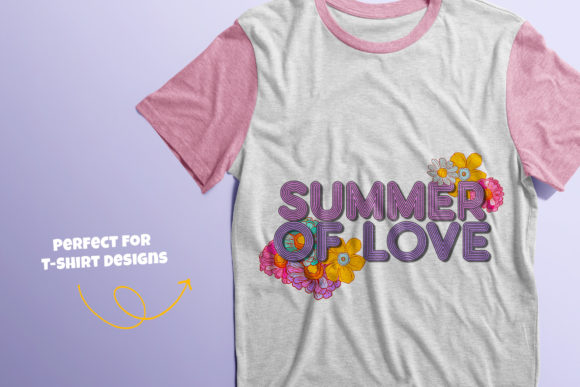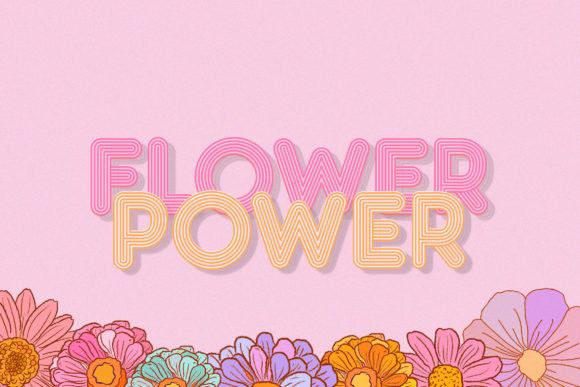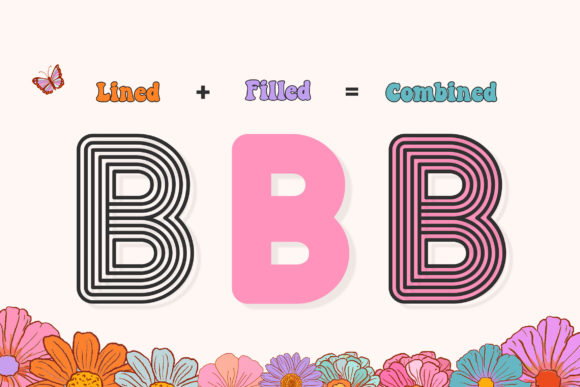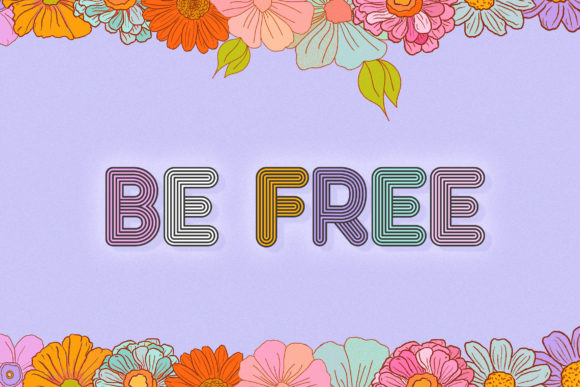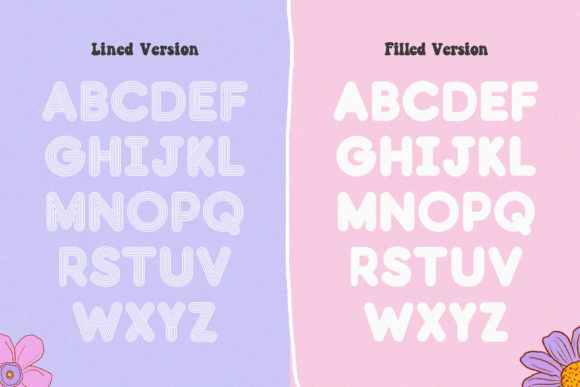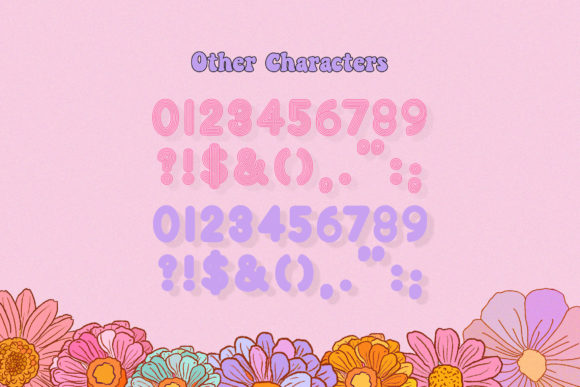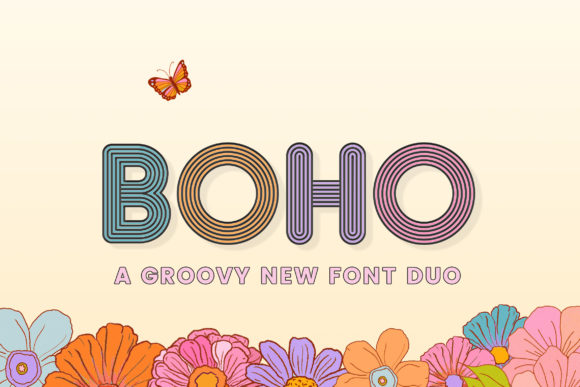
The Boho Font: A Retro Revival for Your Creative Projects
I’ll never forget the design struggle I faced while working on a vintage-inspired branding project for a boutique client. I was on the hunt for the perfect font that could capture the essence of a bygone era, but everything I found seemed either too generic or too over-the-top. That’s when I stumbled upon the Boho font, and it was love at first sight! 😍 In this article, I’ll share my experience with this amazing display font, its features, and how you can make the most of it in your designs.
An Honest Review of Boho Font
What I Love About Boho Font
- ✨ Unique retro vibe that’s perfect for creative projects
- ✅ Highly legible, even at smaller sizes
- 💥 Excellent for headlines, titles, and short text
- 🎉 Extensive character set, including glyphs and stylistic alternates
While Boho font is an excellent choice for many projects, there are a few things to keep in mind:
- 🤔 May not be the best choice for body text or long paragraphs
- ⚠️ Limited support for non-English characters
- Experiment with OpenType features, such as glyphs and stylistic alternates, to add visual interest to your text.
The Backstory of Boho Font
Boho font was designed by a team of creatives who wanted to capture the essence of the bohemian lifestyle. Inspired by vintage posters, travel brochures, and eclectic typography, they created a font that’s perfect for designers, crafters, and creative hobbyists who want to add a touch of retro charm to their projects.
Q: What is the Boho font best used for?
A: Boho font is perfect for headlines, titles, and short text in creative projects, such as branding, packaging, and advertising.
Q: Is Boho font available in different weights or styles?
A: Currently, Boho font is available in a single weight, but it’s possible to experiment with different styles using OpenType features.